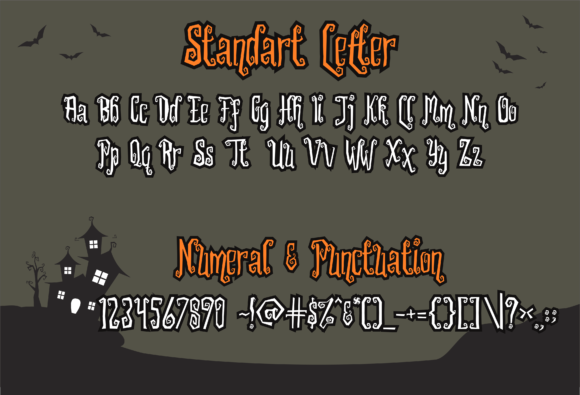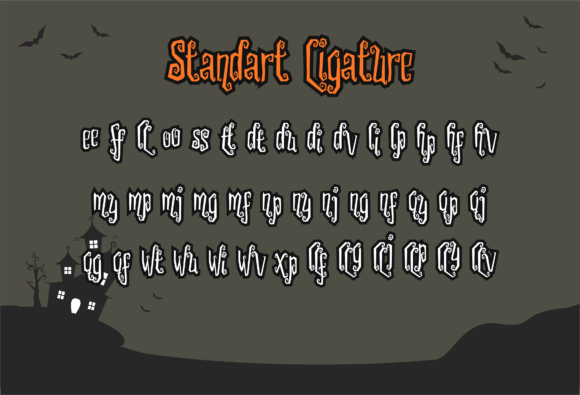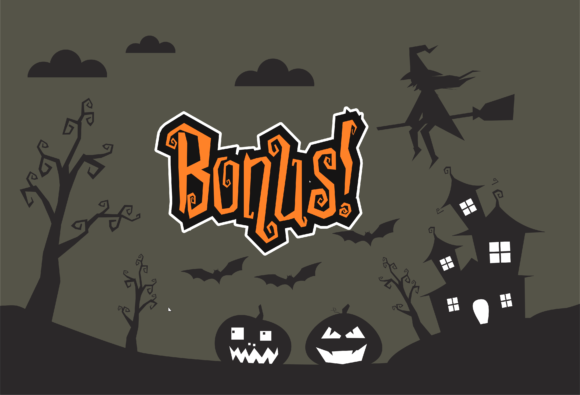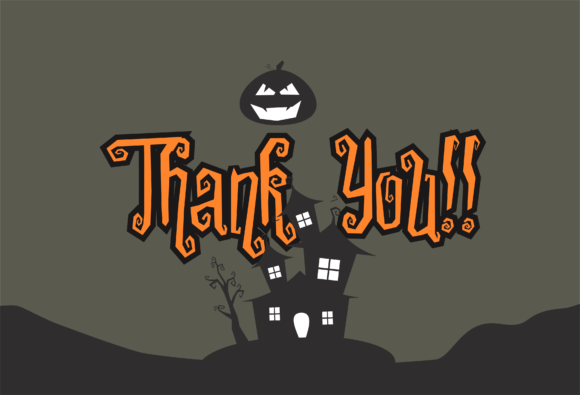
Hallooweek Font: The Spookiest Addition to Your Halloween Crafts
Hallooweek is a spooky and scary Halloween font that will take any craft to the next level! Are you a designer, crafter, or DIY enthusiast looking for the perfect font to add a touch of eeriness to your Halloween-themed projects? Look no further than Hallooweek, the ultimate font for creating spine-tingling crafts that will leave a lasting impression.
The Perfect Font for Halloween Enthusiasts
Hallooweek is a carefully crafted font designed specifically for Halloween enthusiasts. Its unique and terrifying design makes it perfect for a wide range of applications, from DIY crafts and party invitations to social media graphics and Halloween-themed merchandise. Whether you’re a professional designer or a crafter looking for a special touch, Hallooweek is sure to impress.
Key Features of Hallooweek Font
- Spooky and Scary Design: Hallooweek boasts a unique and terrifying design that will add a touch of eeriness to any craft.
- High-Quality Vector Graphics: The font is designed with high-quality vector graphics, ensuring it remains crisp and clear even at large sizes.
- Versatile: The font is perfect for a wide range of applications, from DIY crafts and party invitations to social media graphics and Halloween-themed merchandise.
Why Choose Hallooweek Font?
So, why choose Hallooweek font for your Halloween crafts? Here are just a few reasons:
- Stand Out from the Crowd: Hallooweek is a unique and eye-catching font that will help your crafts stand out from the crowd.
- Add a Touch of Eeriness: The font’s spooky and scary design will add a touch of eeriness to any craft, making it perfect for Halloween-themed projects.
- Professional-Grade Quality: Hallooweek is designed with high-quality vector graphics, ensuring a professional-grade finish.
Tips and Tricks for Using Hallooweek Font
Here are some tips and tricks for getting the most out of Hallooweek font:
- Experiment with Different Sizes: Try using Hallooweek font in different sizes to create a unique and eye-catching design.
- Combine with Other Fonts: Combine Hallooweek with other fonts to create a unique and interesting design.
- Use in Conjunction with Halloween-Themed Graphics: Use Hallooweek font in conjunction with Halloween-themed graphics, such as pumpkins, ghosts, and bats, to create a spooky and scary design.
| Font Name | Hallooweek Font |
| Author | Nun Creatype |